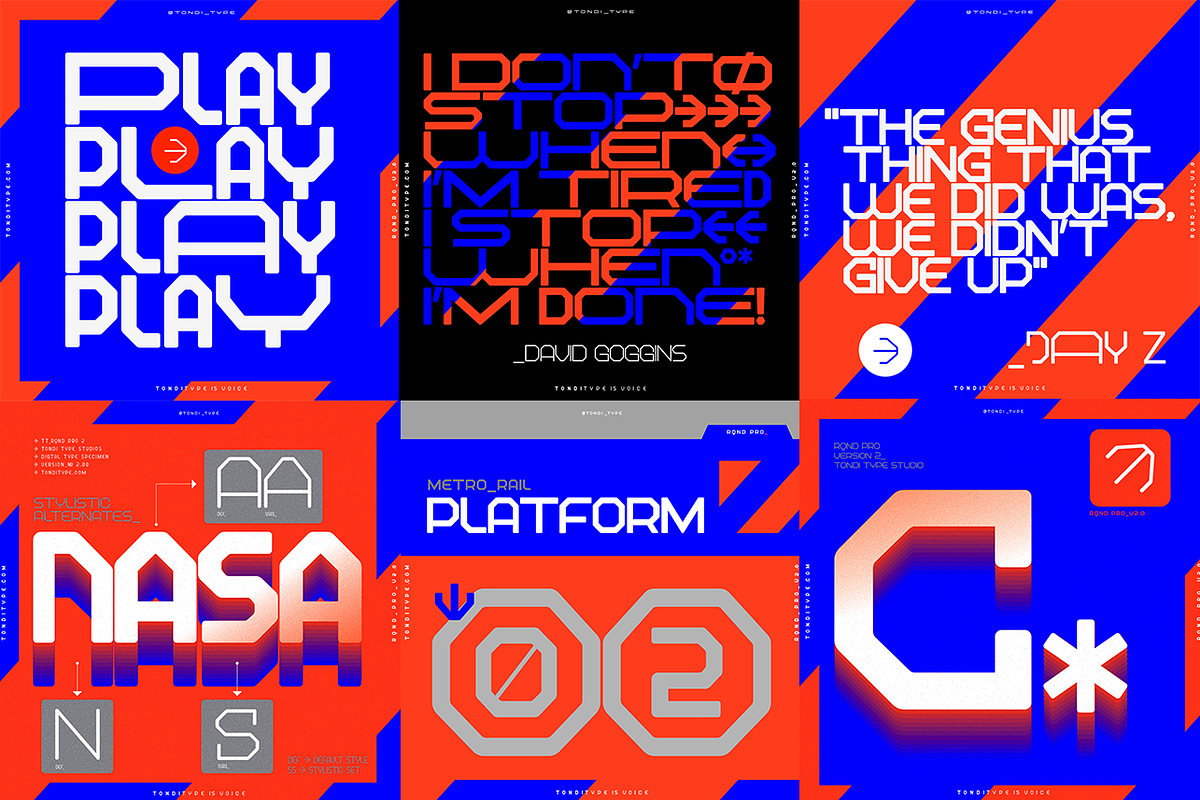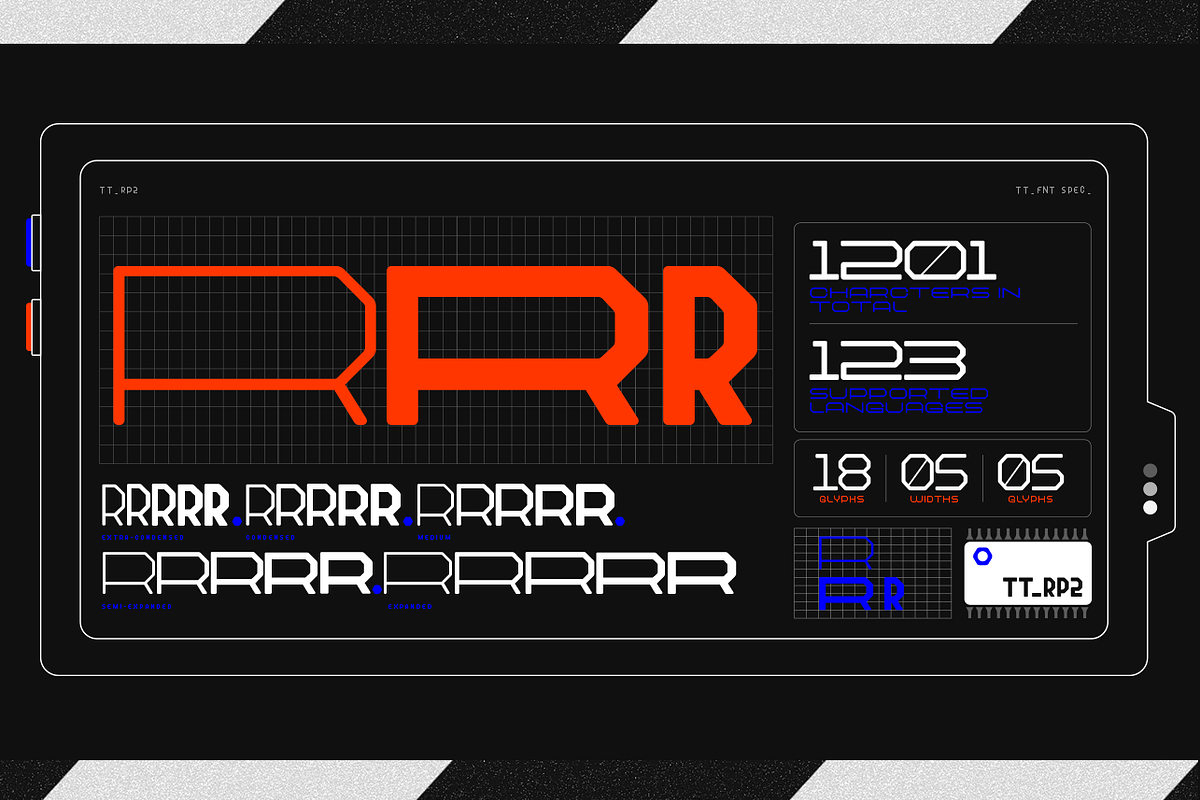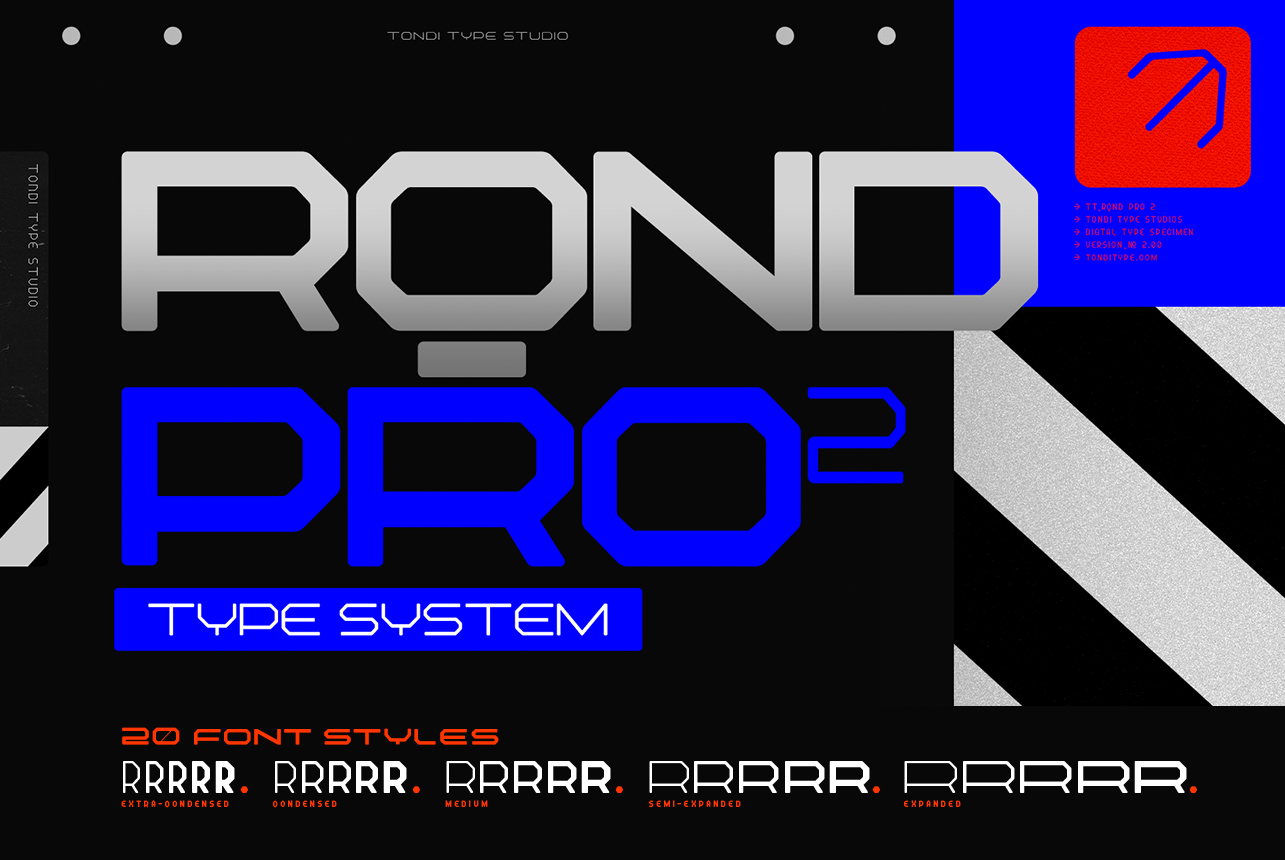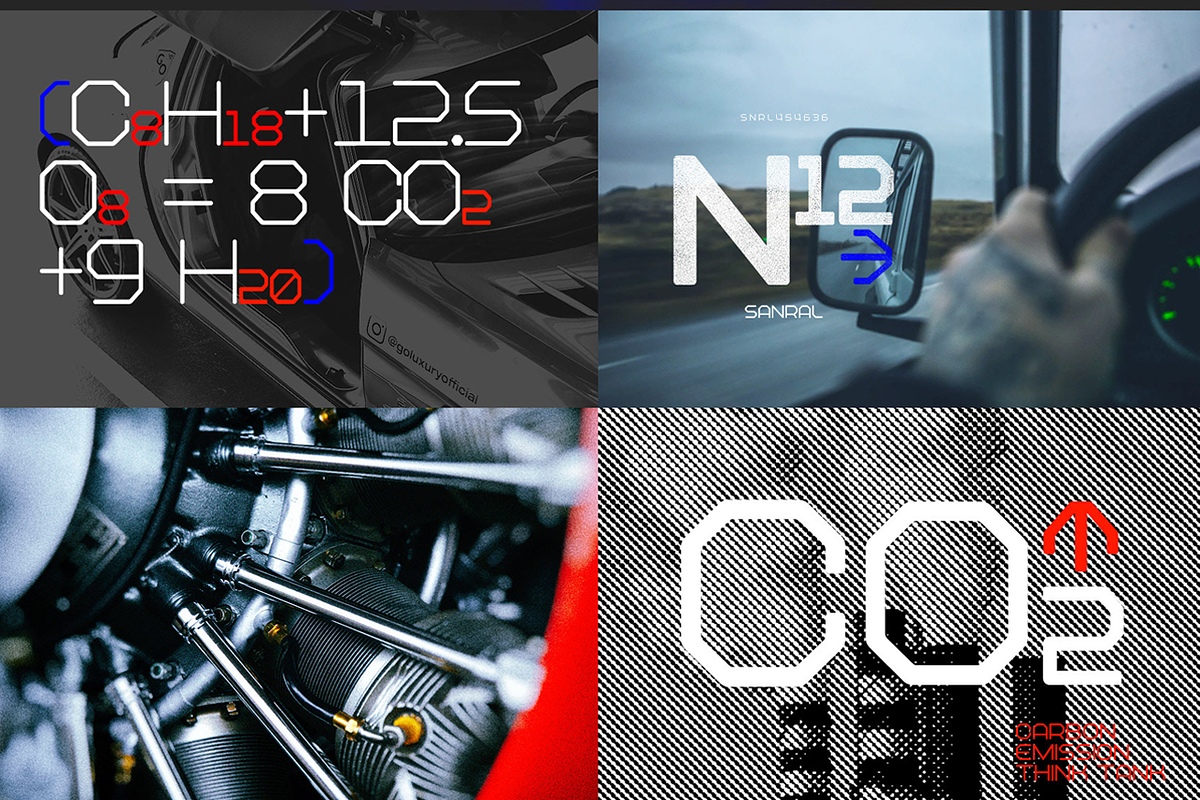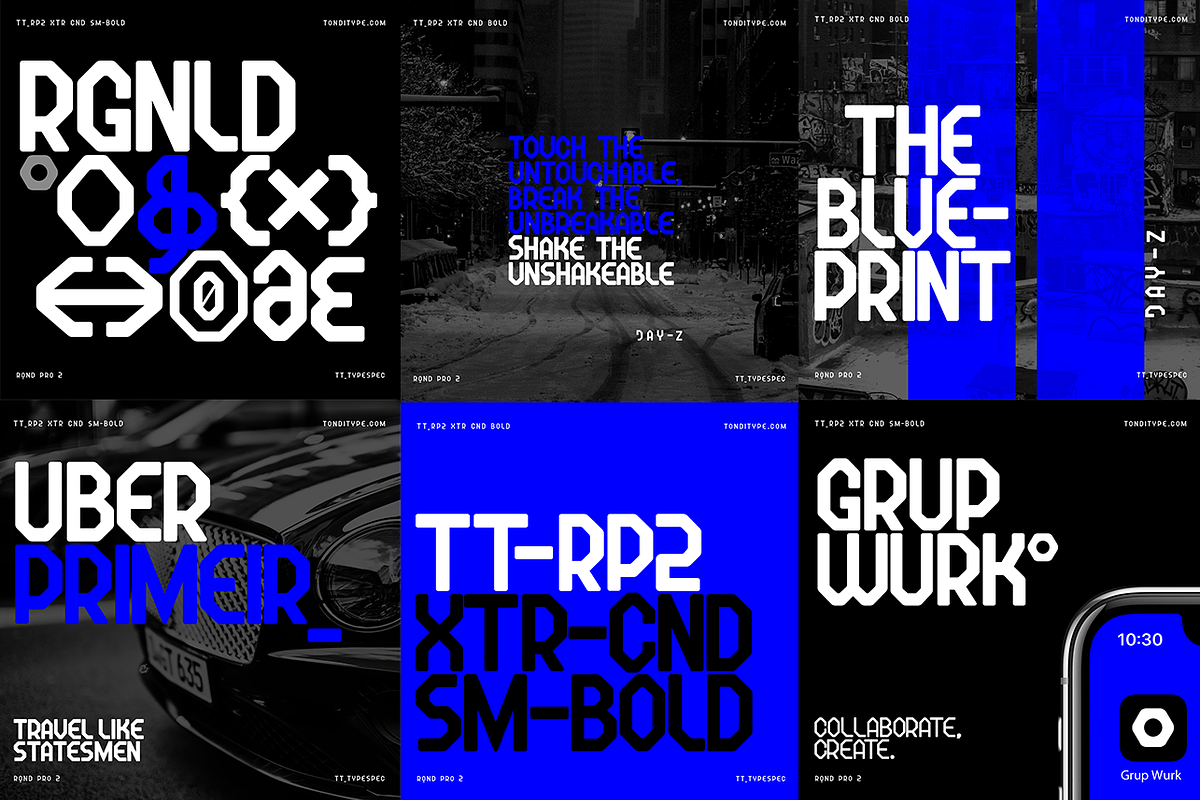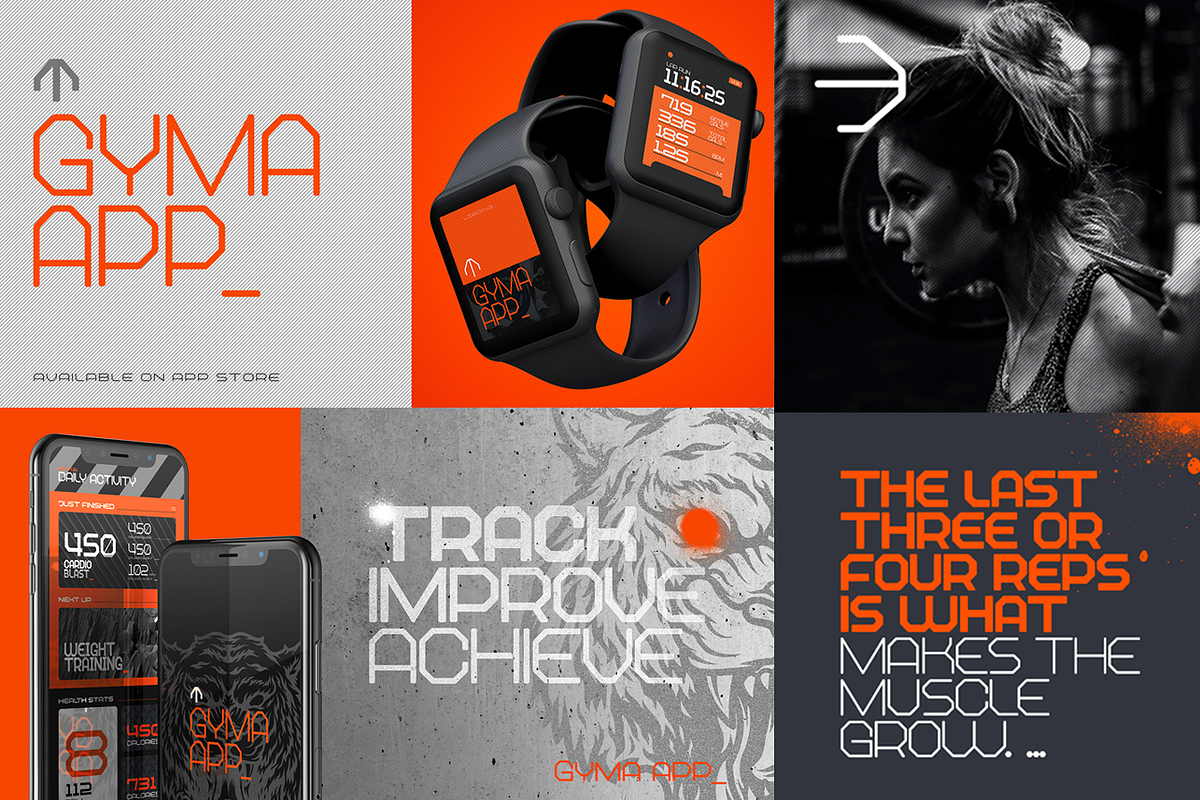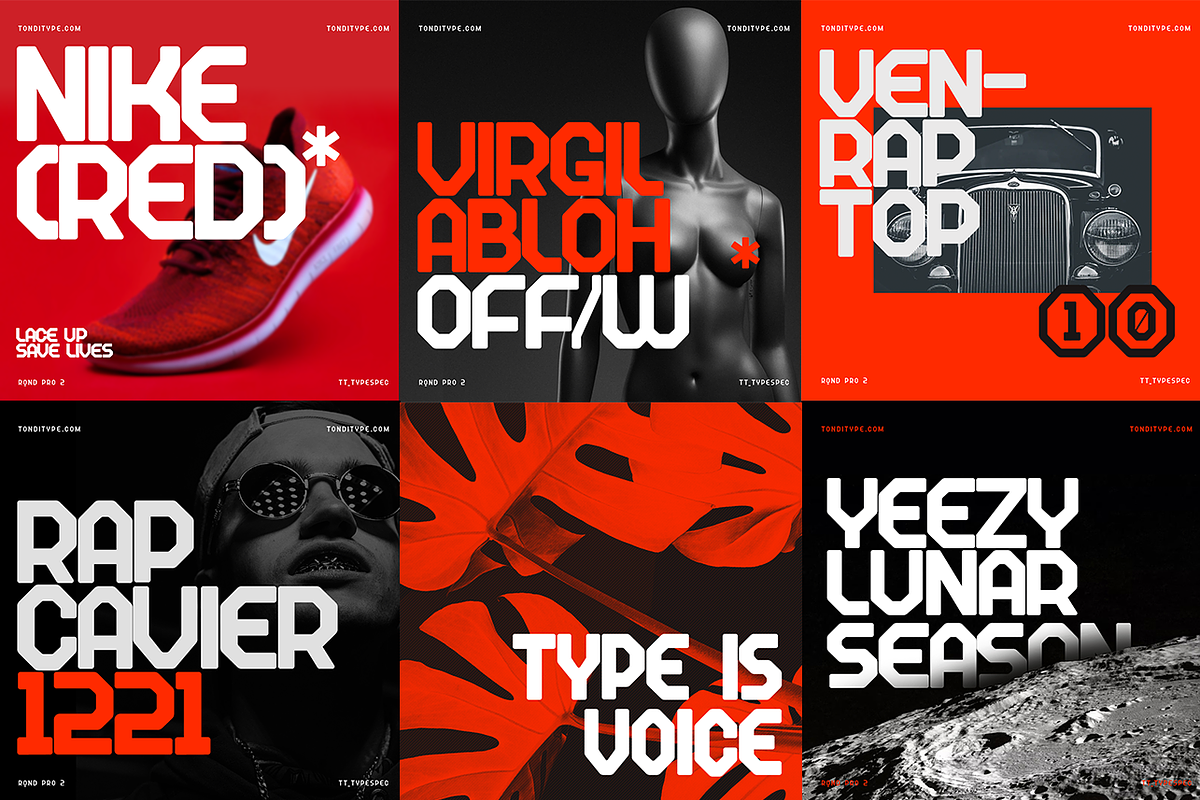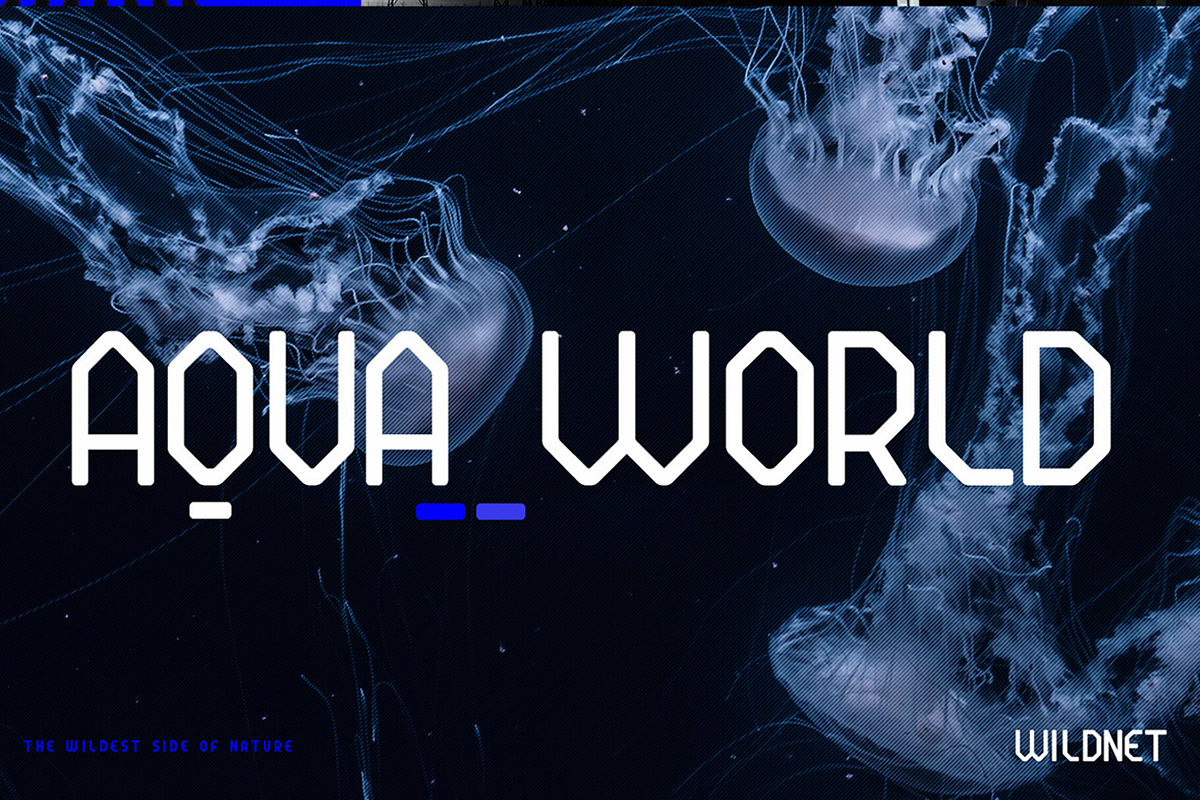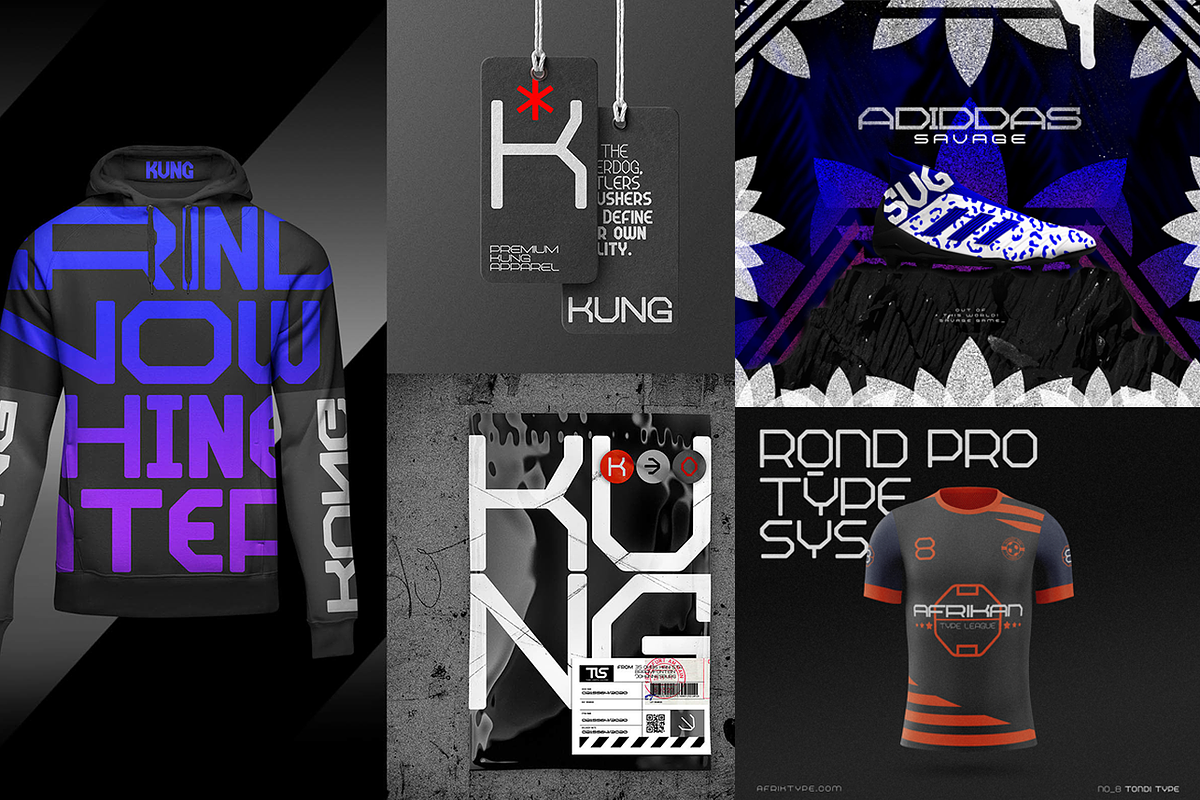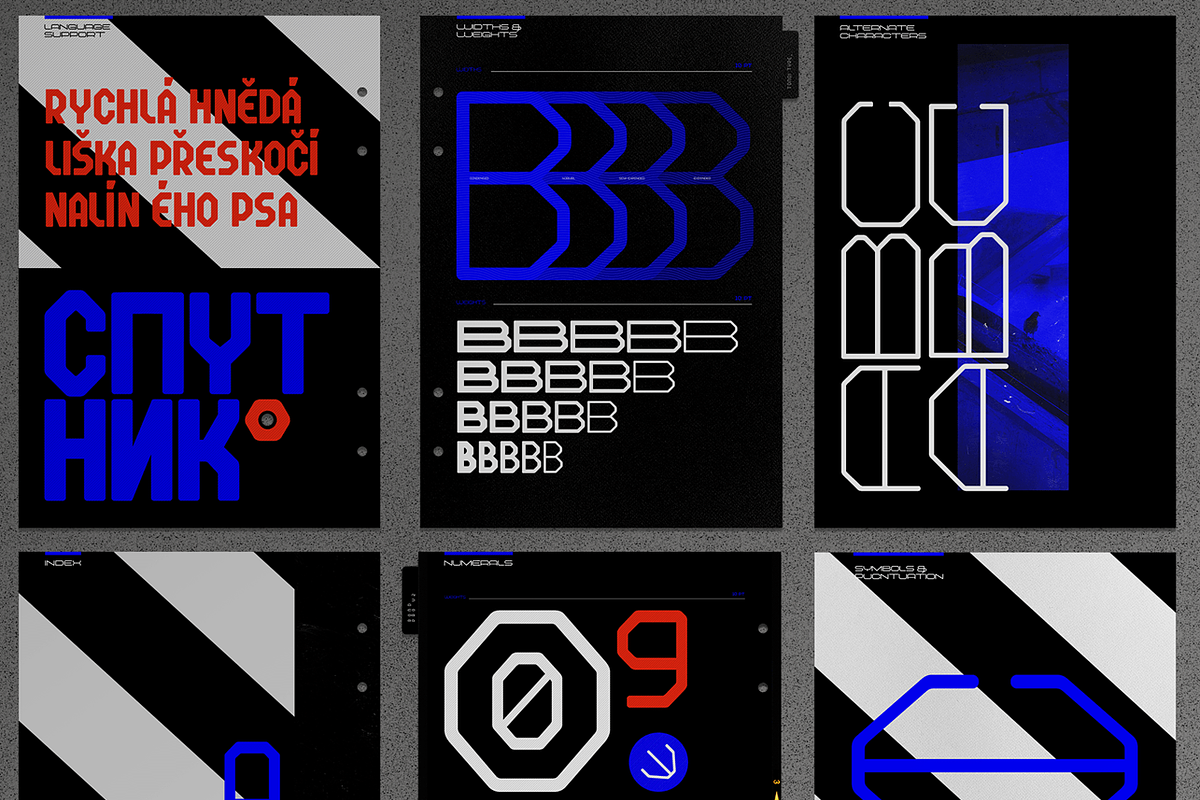
RQND Pro 2 - Type System (20 fonts )
Introducing RQND Pro 2 - The Futuristic and Industrial Sans Serif Font (60% off)
Welcome to the world of RQND Pro 2, a cutting-edge sans serif font designed to elevate your designs to new heights. With its industrial aesthetic and futuristic appeal, this font is the perfect choice for projects seeking a bold and contemporary look.
- 1,201 Glyphs: RQND Pro 2 boasts an extensive character set, offering you a vast array of design possibilities.
- Supports 123 Languages: No matter where your audience is, this font ensures that your message is conveyed clearly and effectively.
- 20 Font Styles: With 5 font weights and 5 font widths, RQND Pro 2 offers 20 unique styles to suit every creative vision.
- Expanded to Extra Condensed: Whether you need a spacious layout or a compact design, this font delivers unmatched versatility.
- 18 OpenType Features: Unlock the full potential of RQND Pro 2 with various OpenType features, including small caps, alternate characters, standard numerals, circled numerals, fractions, and more.
- All Caps Font: Embrace the power of uppercase letters with this font, enhancing the impact of your message.
- Full Character Set: From standard numerals to punctuation marks, mathematical symbols to special characters, RQND Pro 2 has everything you need for seamless communication.
- Latin and Cyrillic Support: Perfect for international projects, this font provides complete support for both Latin and Cyrillic languages.
Unlock Your Creativity with RQND
RQND Pro 2 empowers designers, creatives, and typographers to explore new design territories. Its sleek and modern appearance makes it ideal for branding, editorial projects, advertisements, web design, and more.
Discover a font that combines sophistication with contemporary flair. Elevate your designs with RQND Pro 2 and leave a lasting impression on your audience.
Embrace the future of design with RQND Pro 2 - explore the full range of styles and unleash your creativity today.